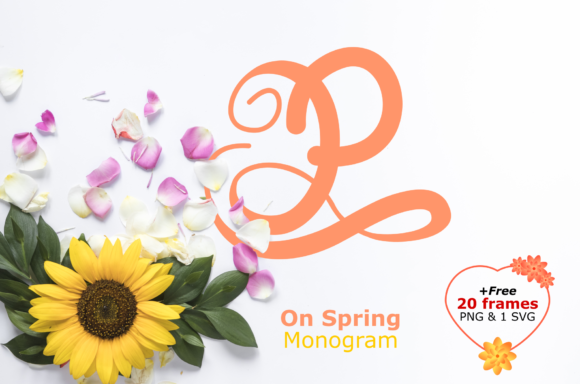
Prepare to be captivated by On Spring, an exquisite display font that embodies the essence of elegance and charm. Its graceful swashes dance across the page, adding a touch of whimsical sophistication to any design.
With On Spring at your fingertips, you can elevate your creative projects to new heights. Its versatility knows no bounds, making it the perfect font for�らゆる branding projects, from chic logos to stylish labels. Its enchanting presence will make your designs stand out from the crowd, leaving a lasting impression on all who behold them.
Picture your invitations adorned with On Spring's delicate swashes, conveying the joy and elegance of your special day. Or envision your letterheads adorned with its refined lines, adding a touch of sophistication to your professional correspondence.
On Spring is not merely a font; it's an invitation to unleash your inner artist and create designs that captivate and inspire. Embrace the magic of On Spring today, and let your creativity soar to new heights!